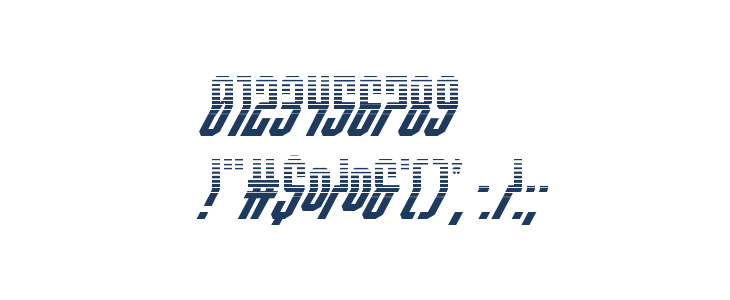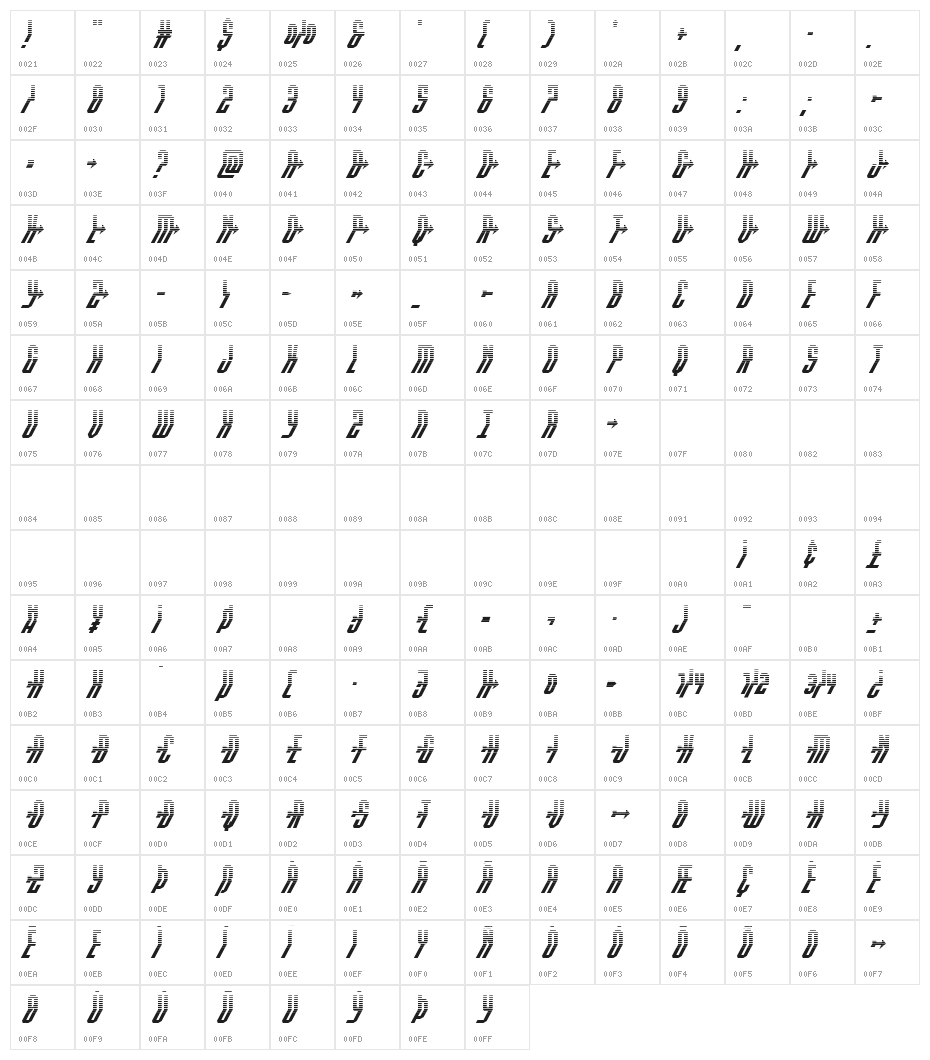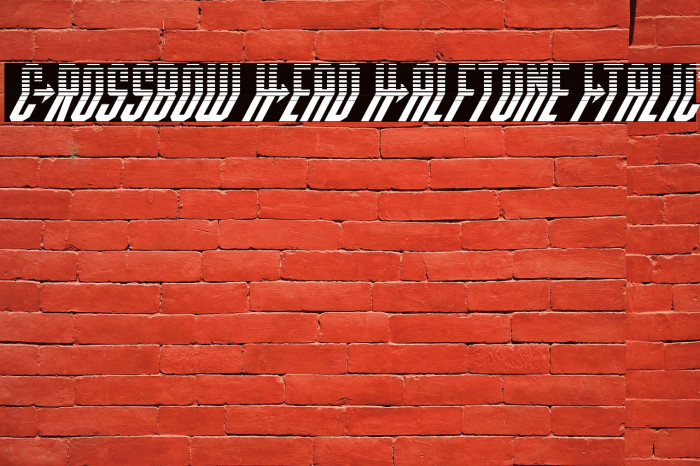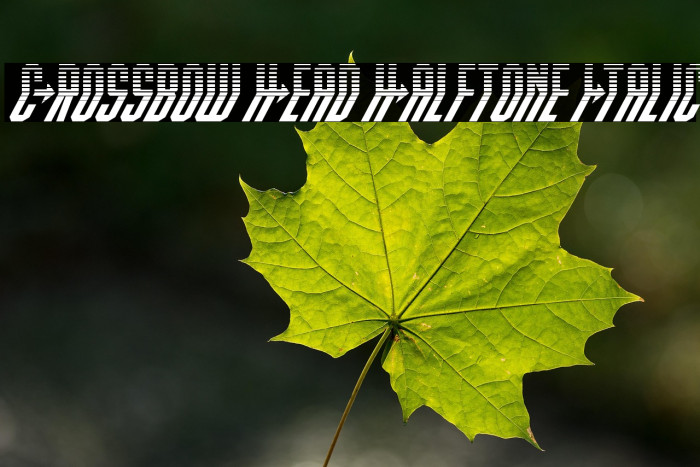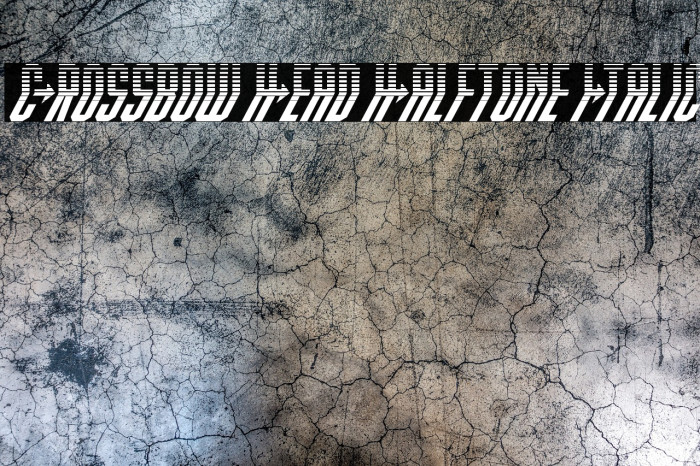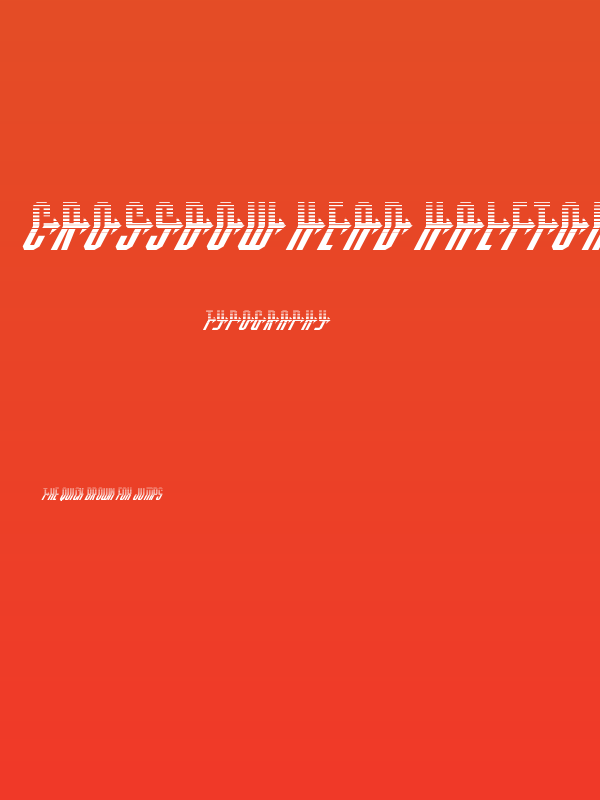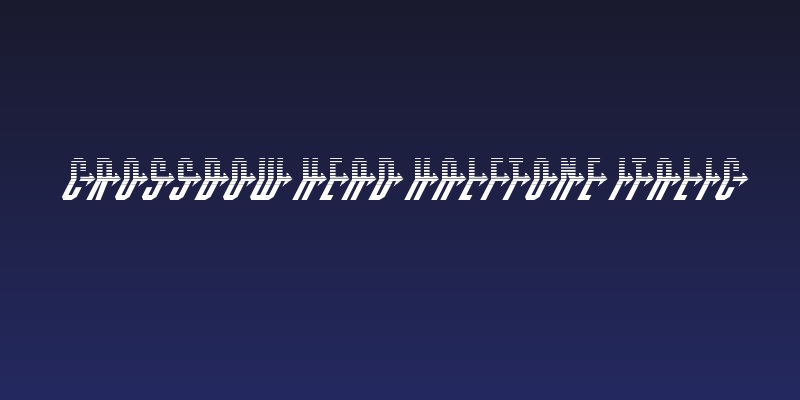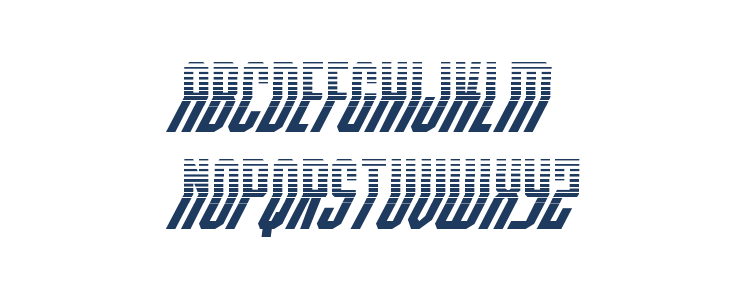
Crossbow Head Halftone Italic Font
Crossbow Head Halftone Italic Description
This font features a bold, dynamic design with a halftone effect that gives it a unique, textured appearance. The italicized style adds a sense of motion and speed, making it ideal for projects that require a modern and edgy look. The characters are composed of horizontal lines that create a striking visual impact, while the bold weight ensures strong readability. The spacing between characters is tight, enhancing the compact and cohesive feel of the text. This font is perfect for headlines, posters, and any design that aims to capture attention with its futuristic and energetic style.
| Use Case | Headlines, Posters, Branding |
| Proposed Projects | Ideal for use in posters, headlines, branding, and any project that requires a bold, modern aesthetic. |